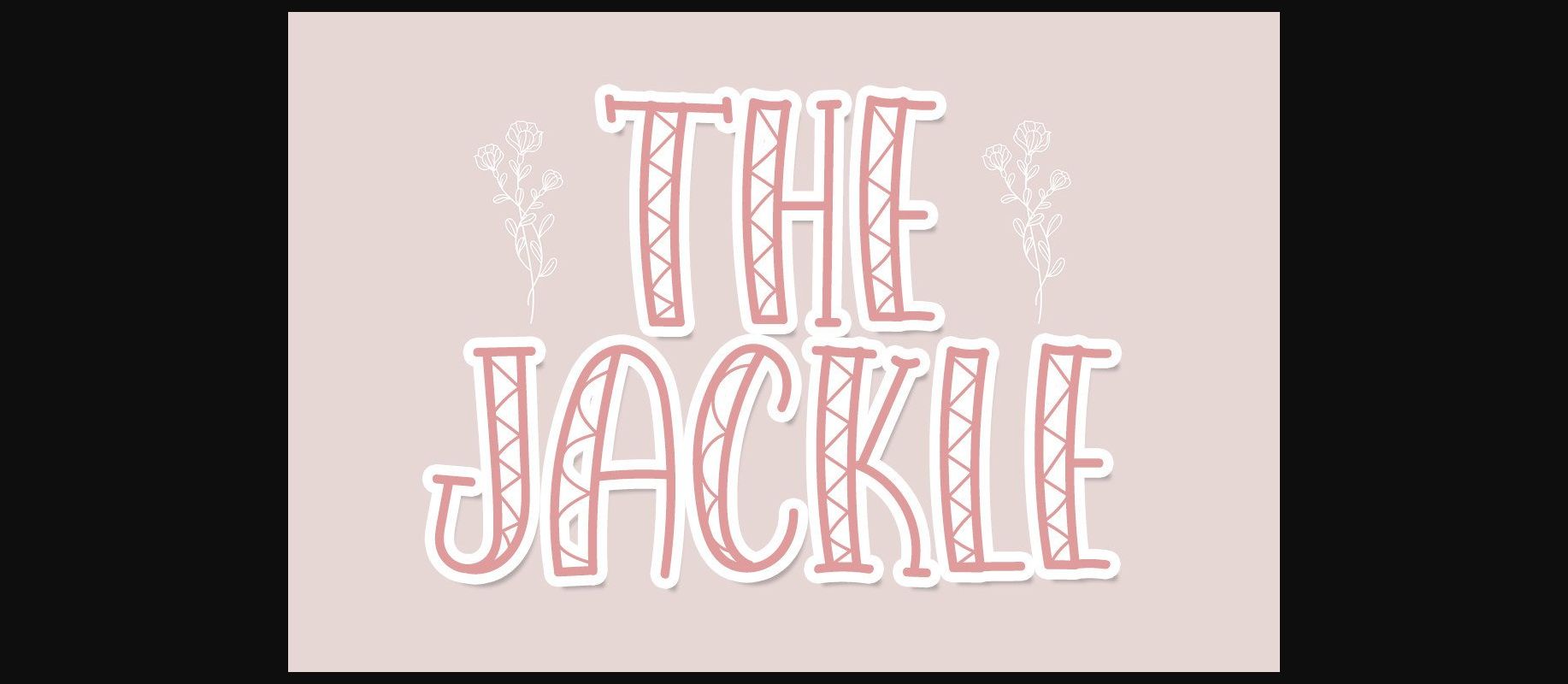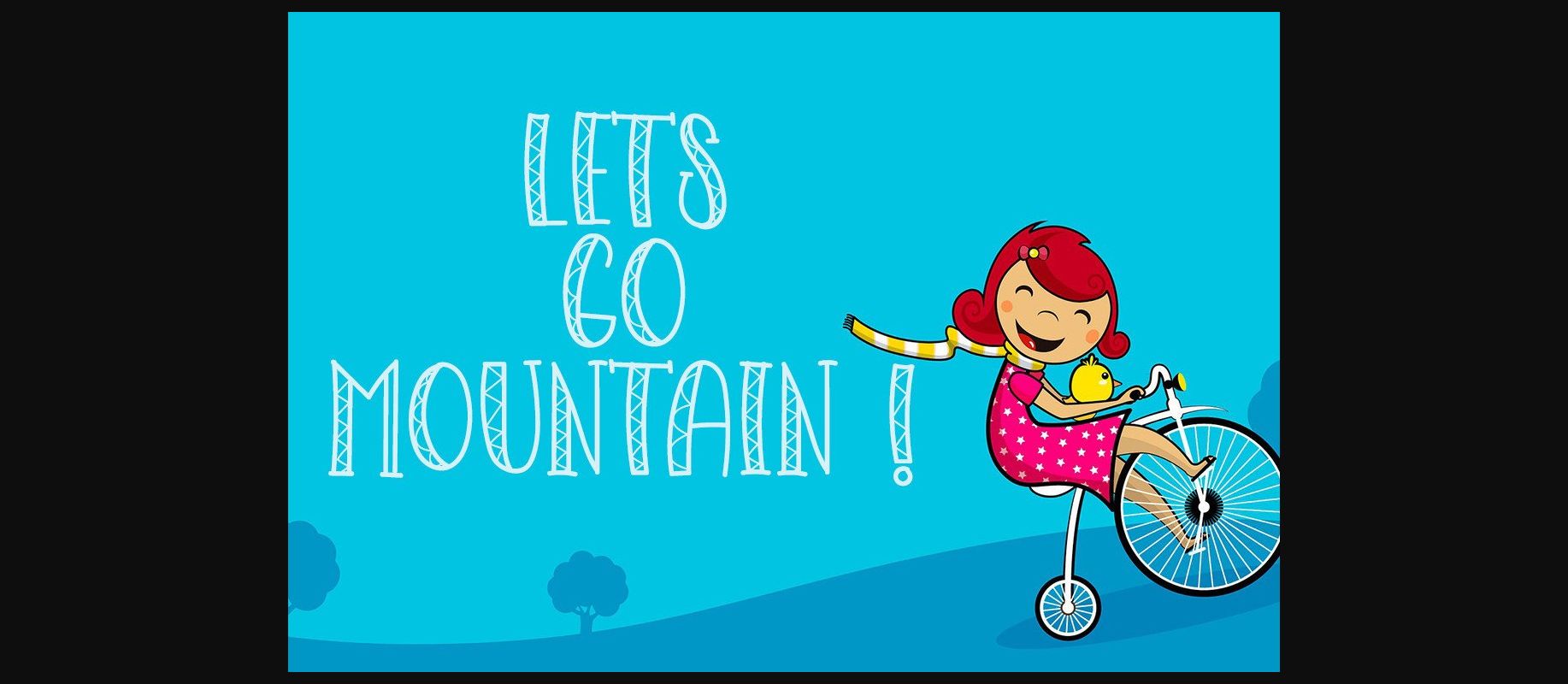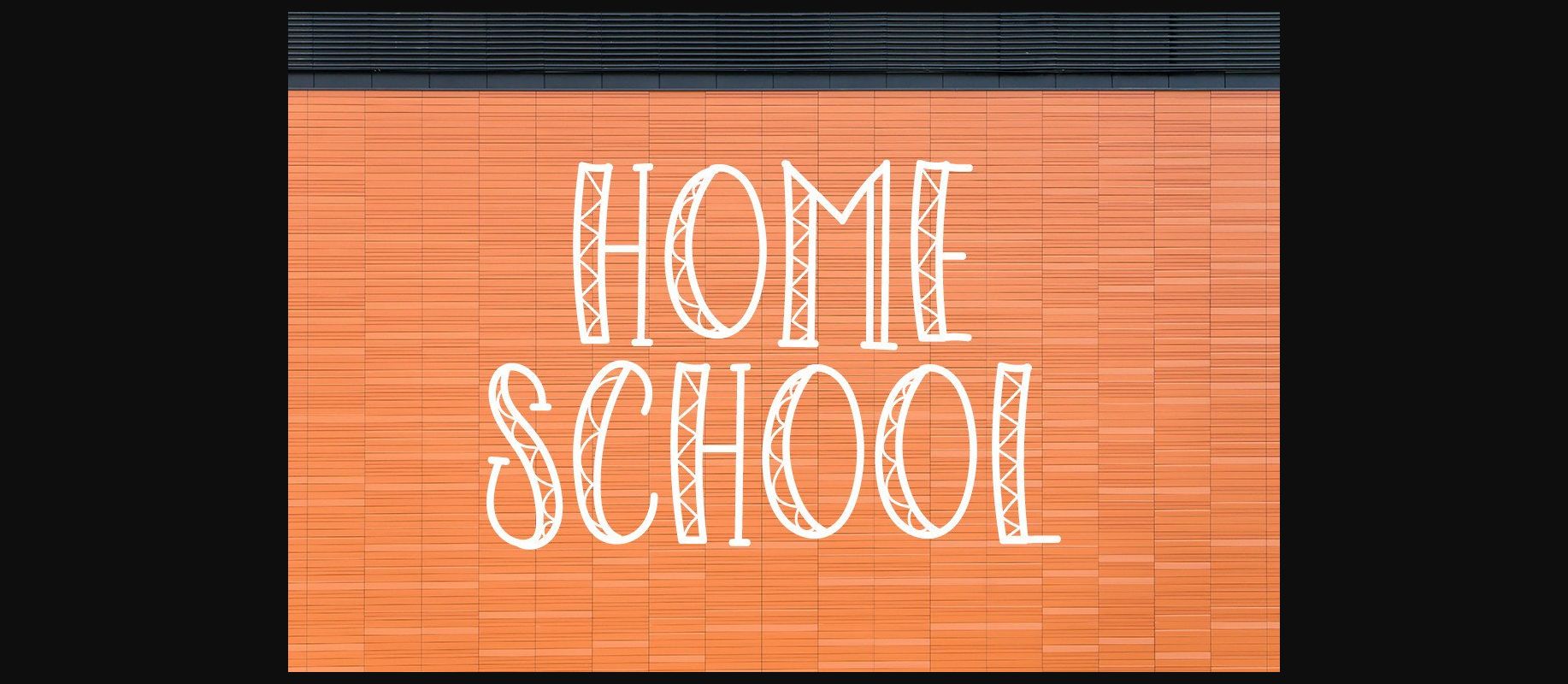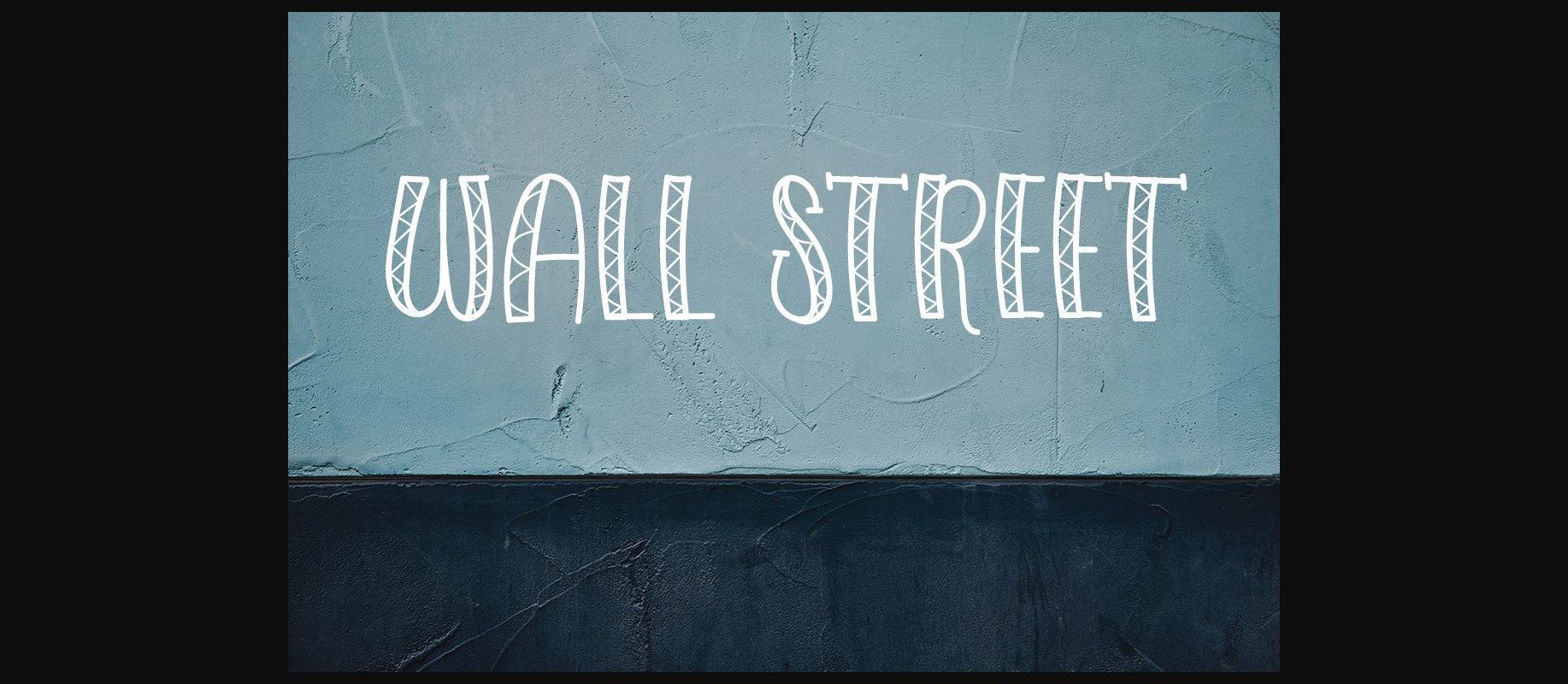
The Jackle Font
About The Jackle Font
The Jackle is a beautiful and sweet decorative font. It is fresh, clean, and elegant. This font will look amazing in a great number of projects, both formal and informal. It will add an incredibly joyful touch to your designs. Fonts are designed to simplify your design. By using this font, your business will look more beautiful.